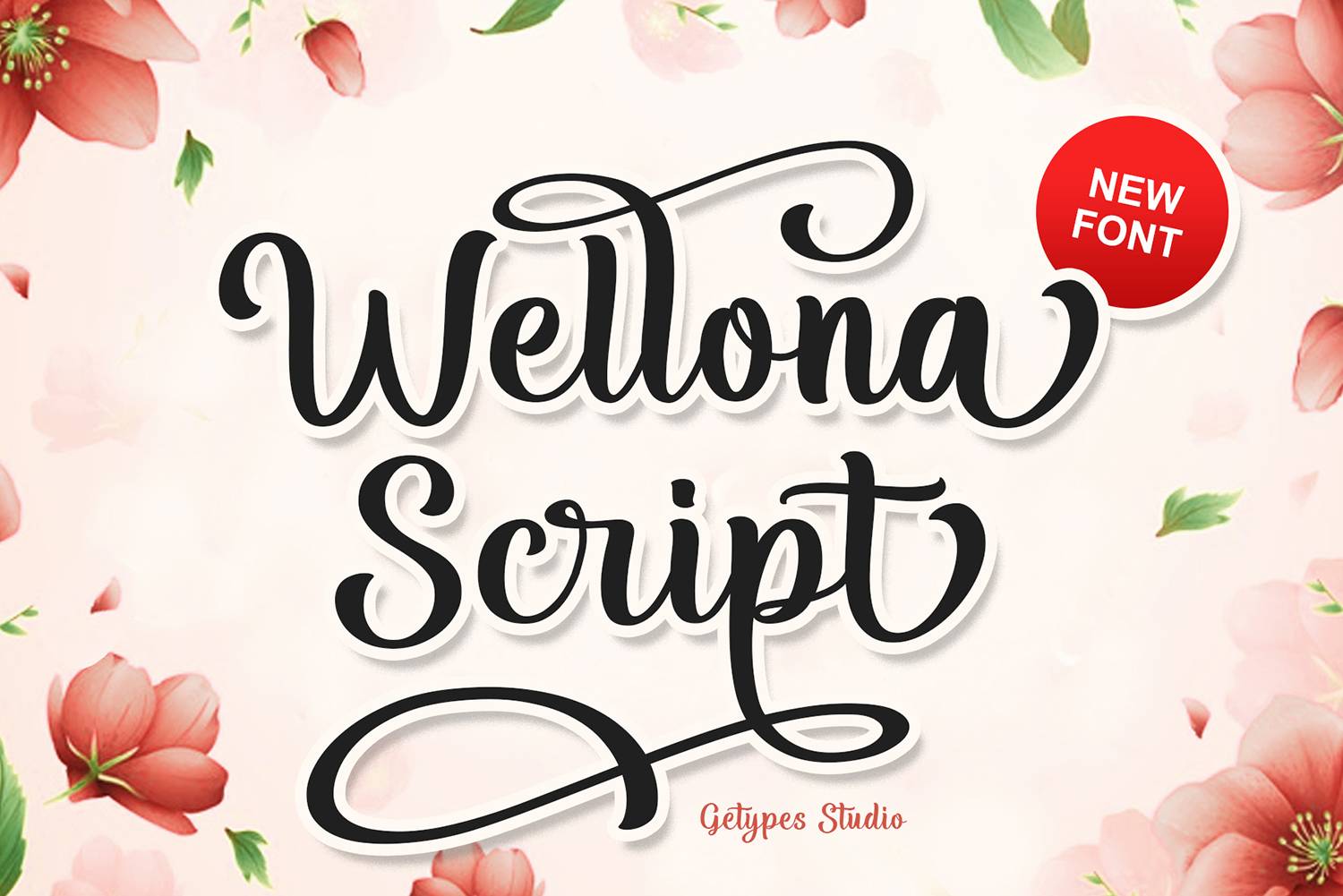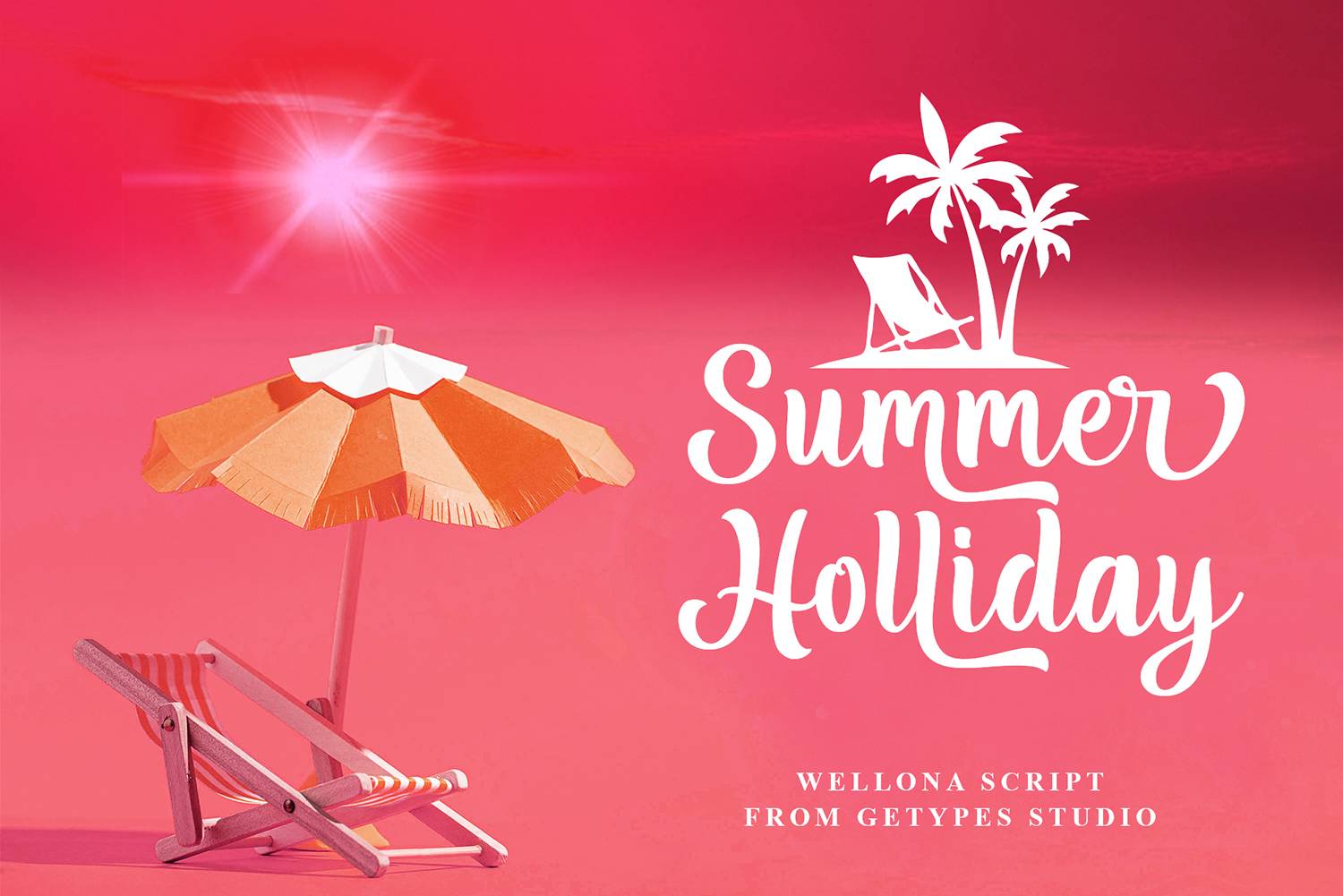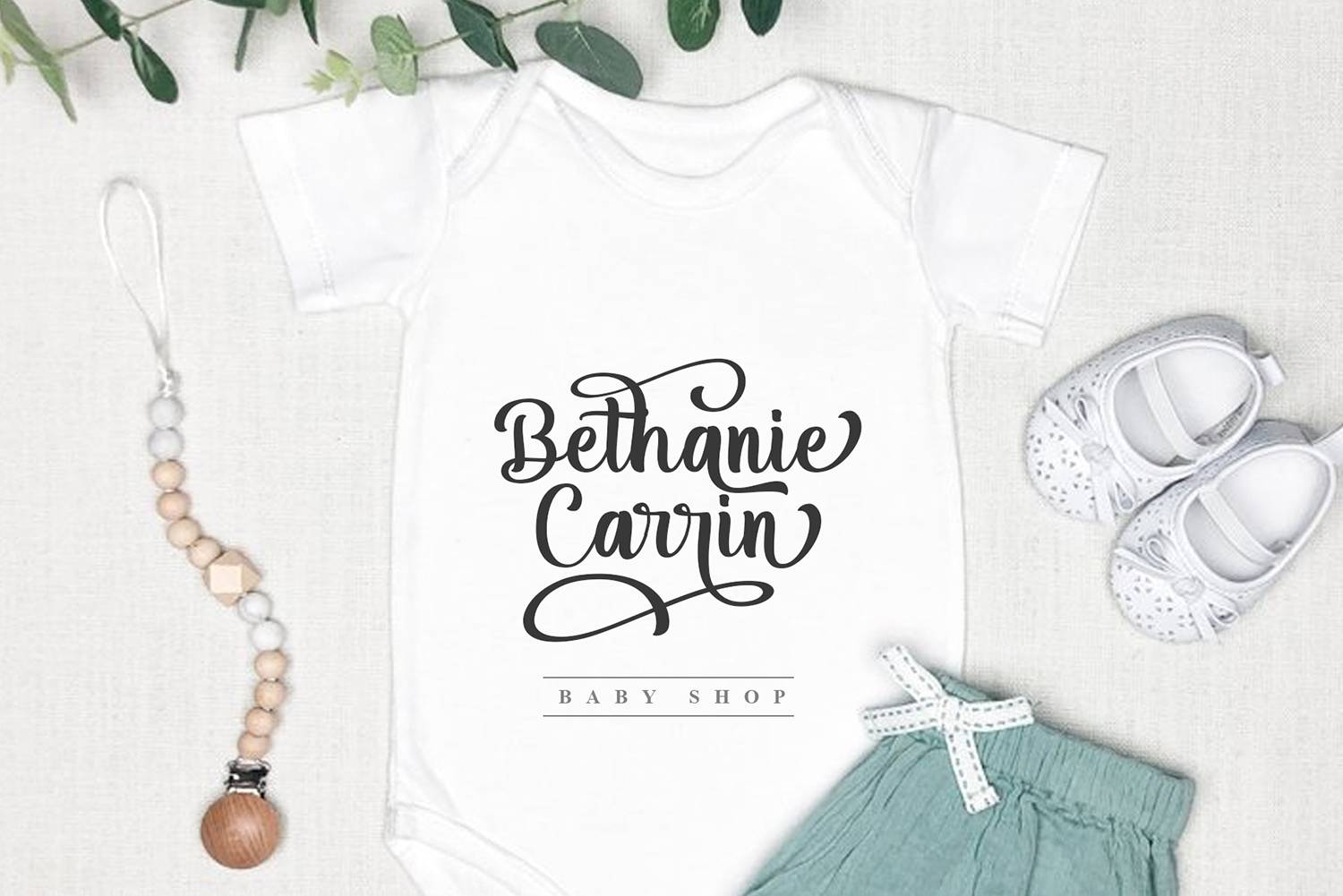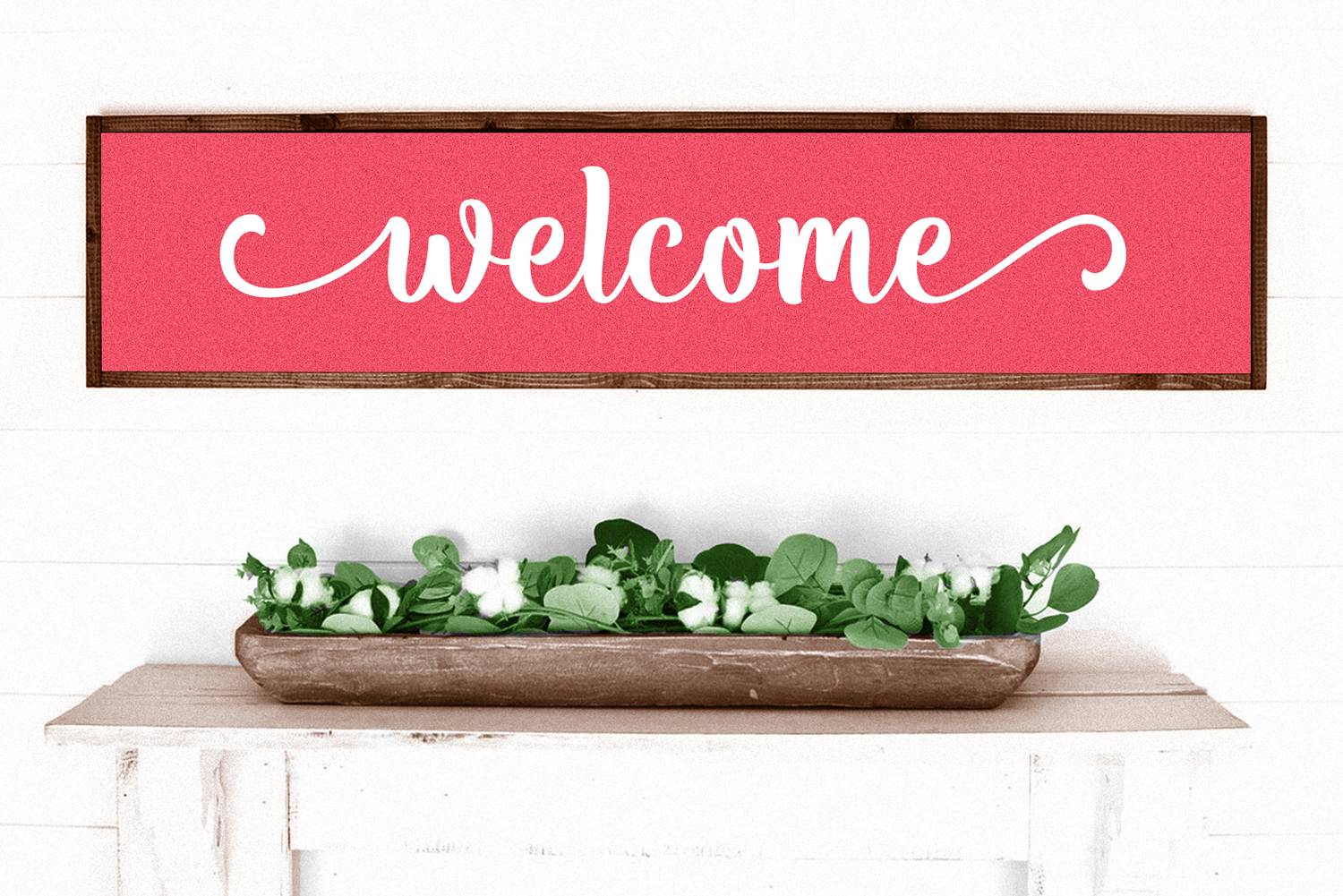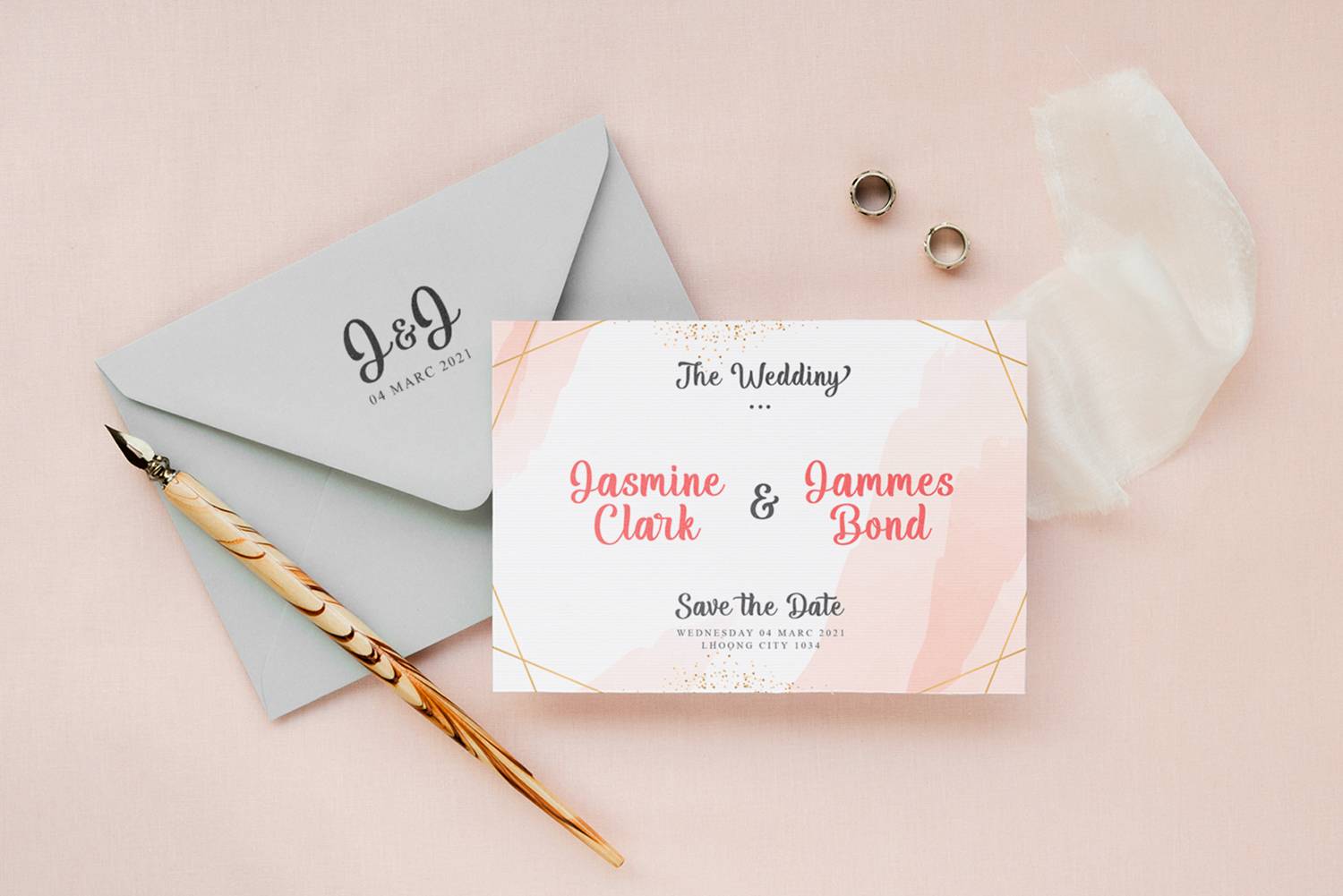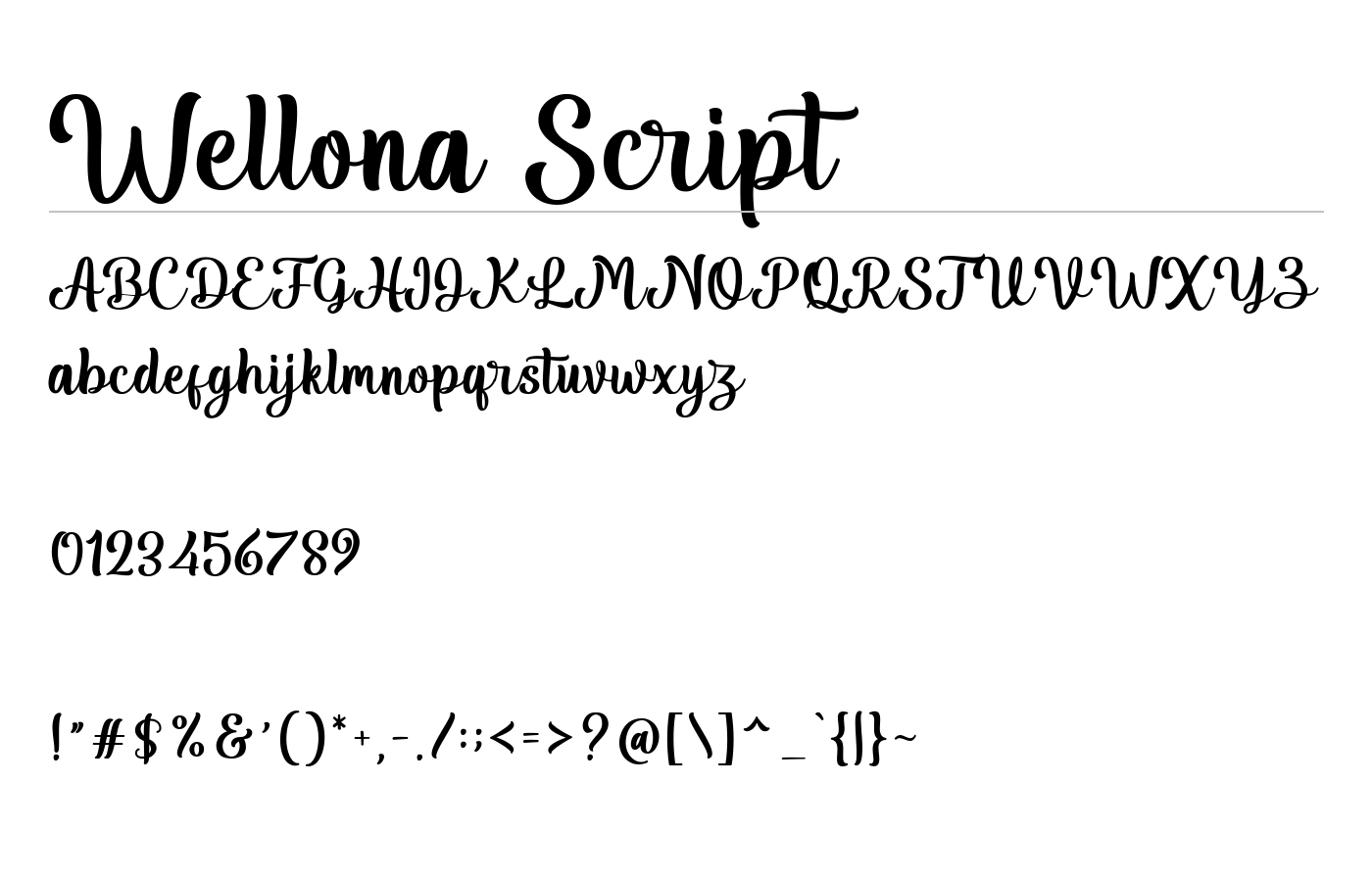
Wellona Script is a graceful and playful script font with smooth, moderately thick strokes and a charming, hand-drawn feel. Its lively yet elegant letterforms, featuring unique loops and swashes, make it ideal for branding, invitations, and creative projects that seek a personal and stylish touch. This font works beautifully for logos, packaging, and headlines where a warm, friendly, and refined look is desired.
Wellona Script Font
About Wellona Script Font
| Font family | Wellona Script Font |